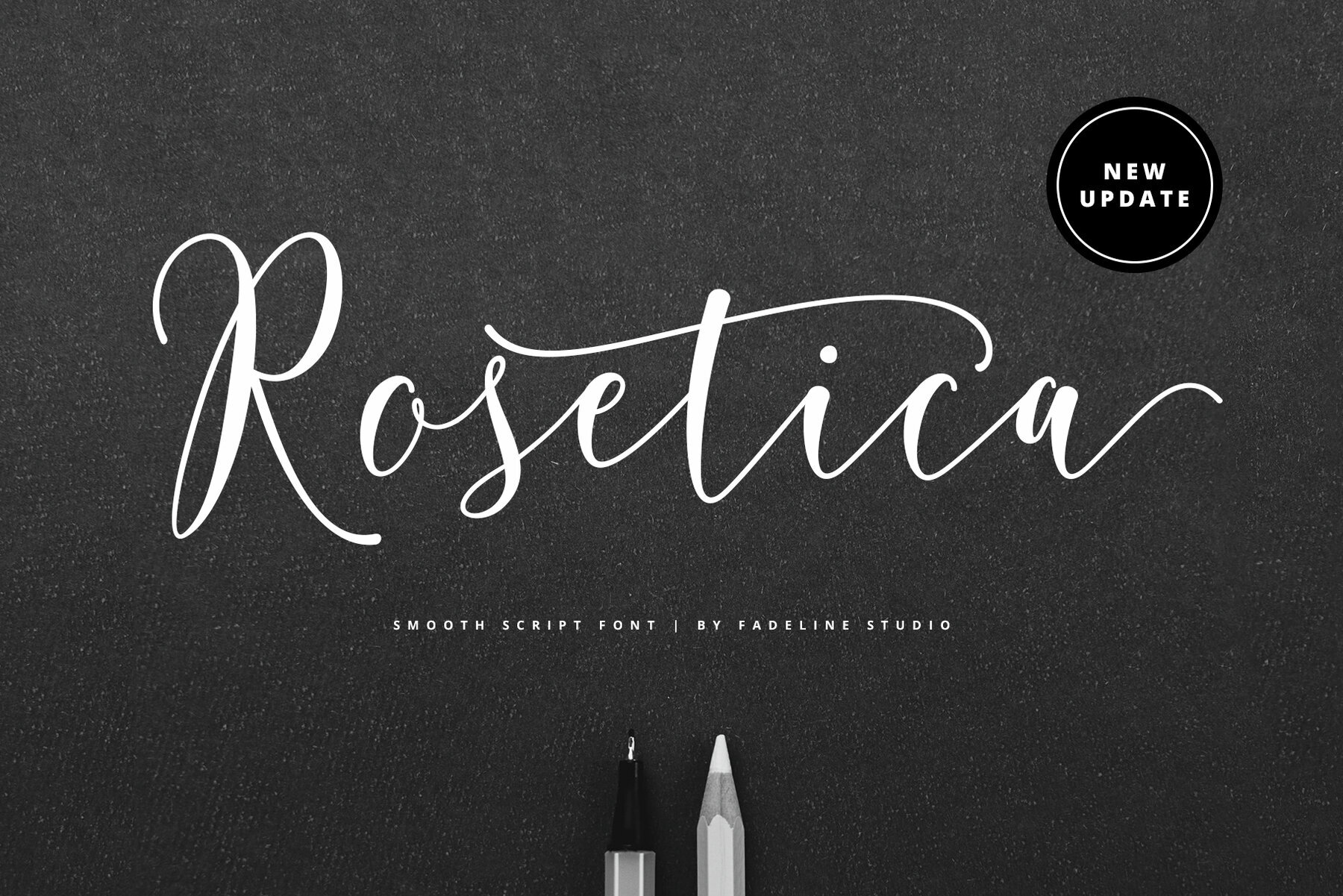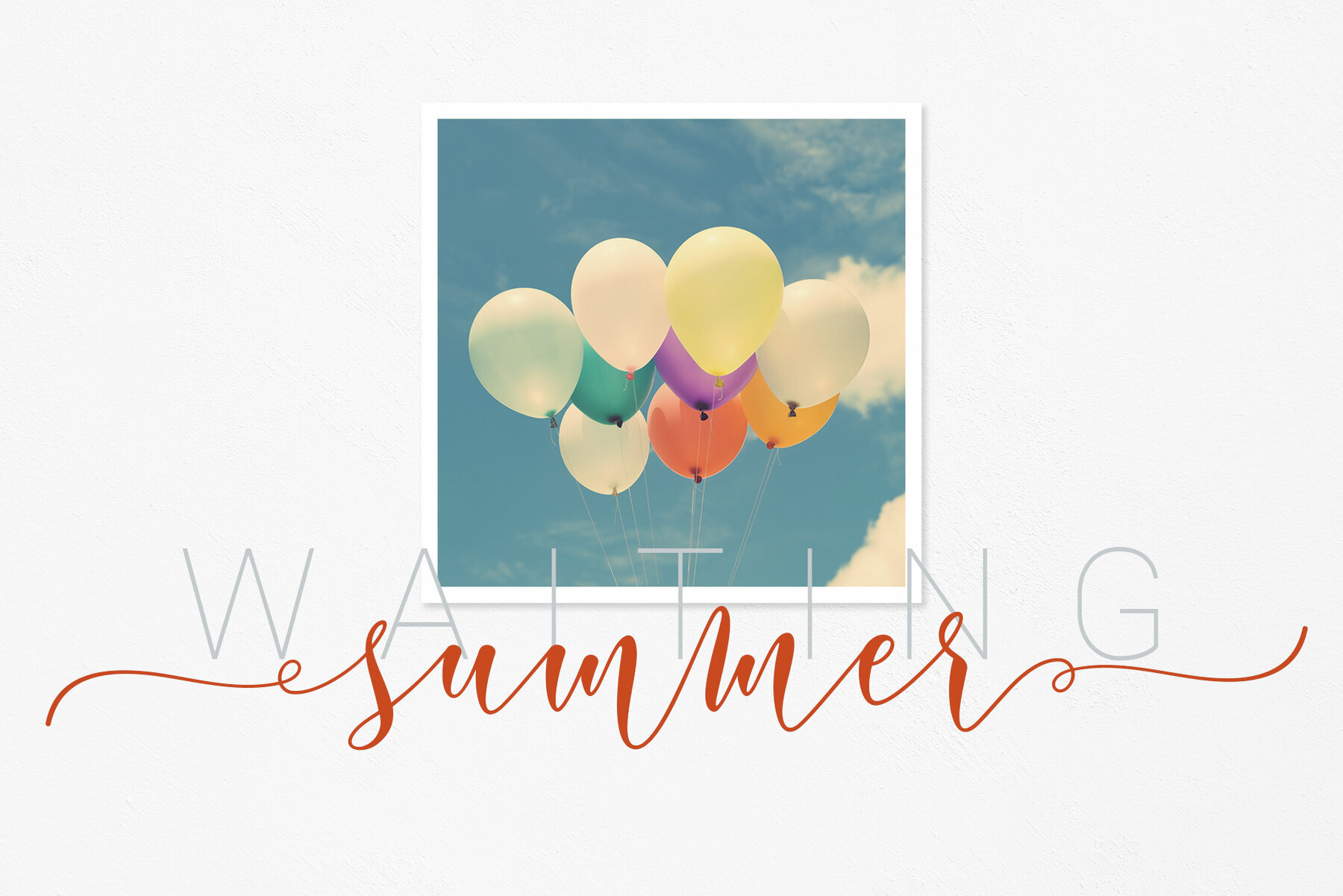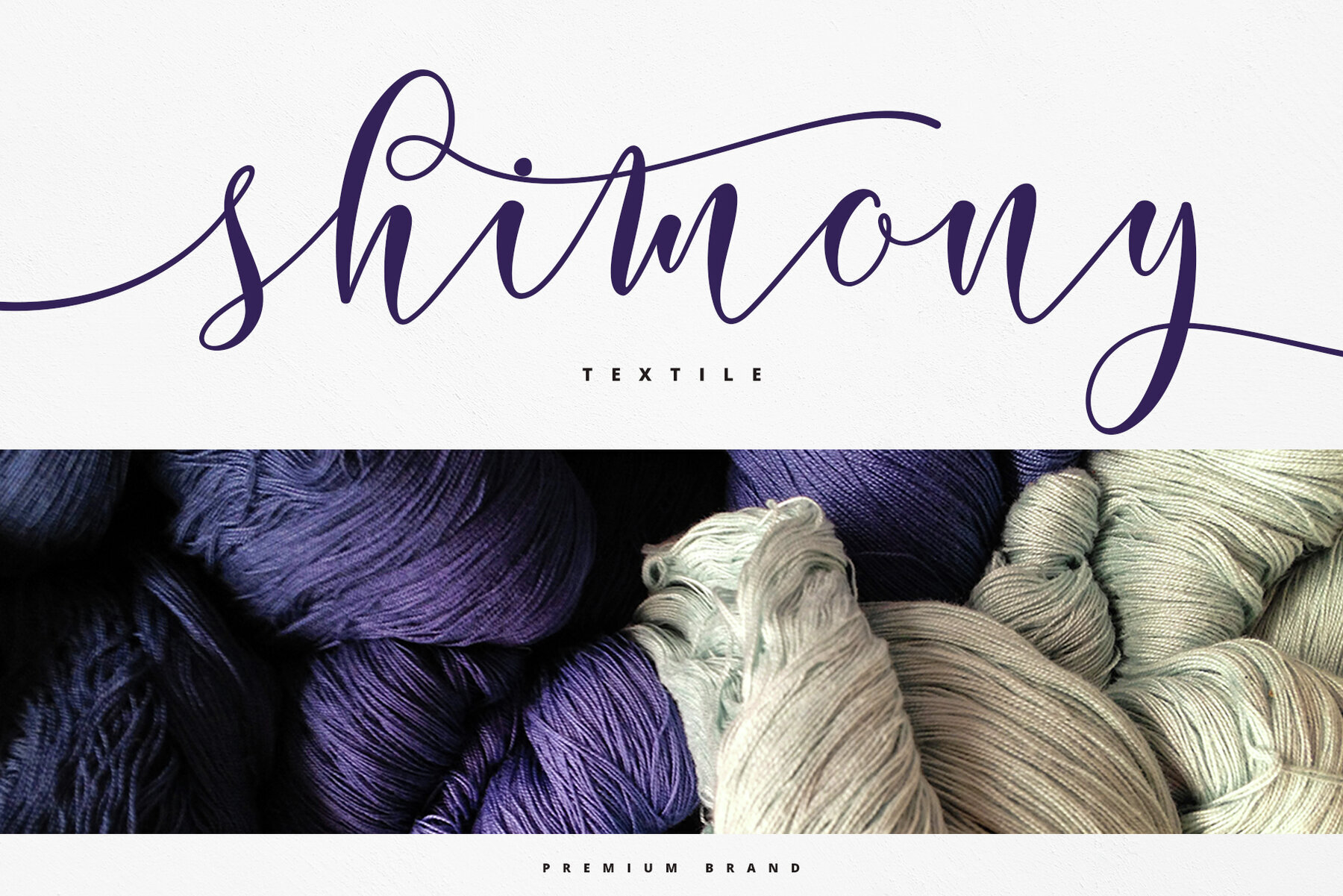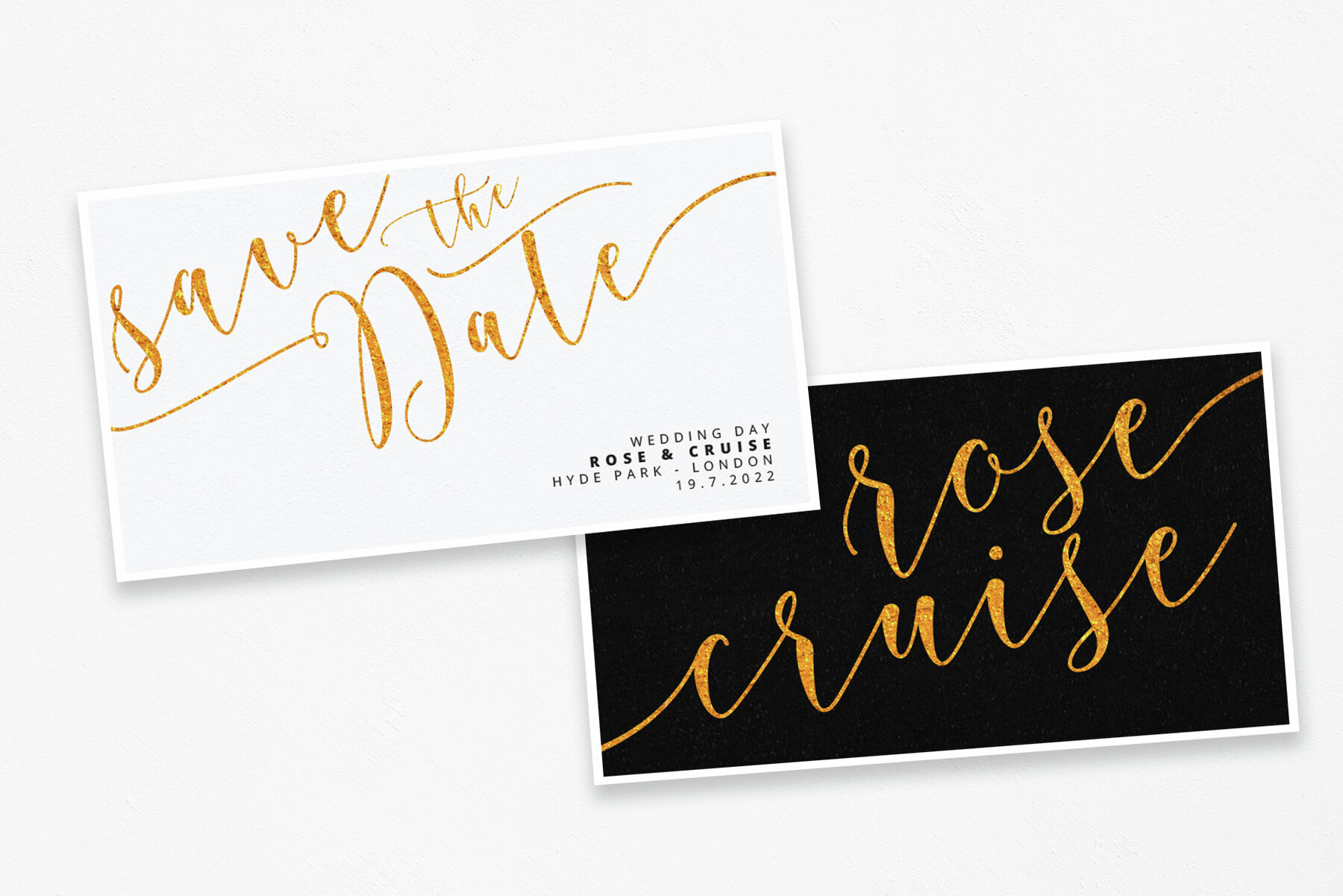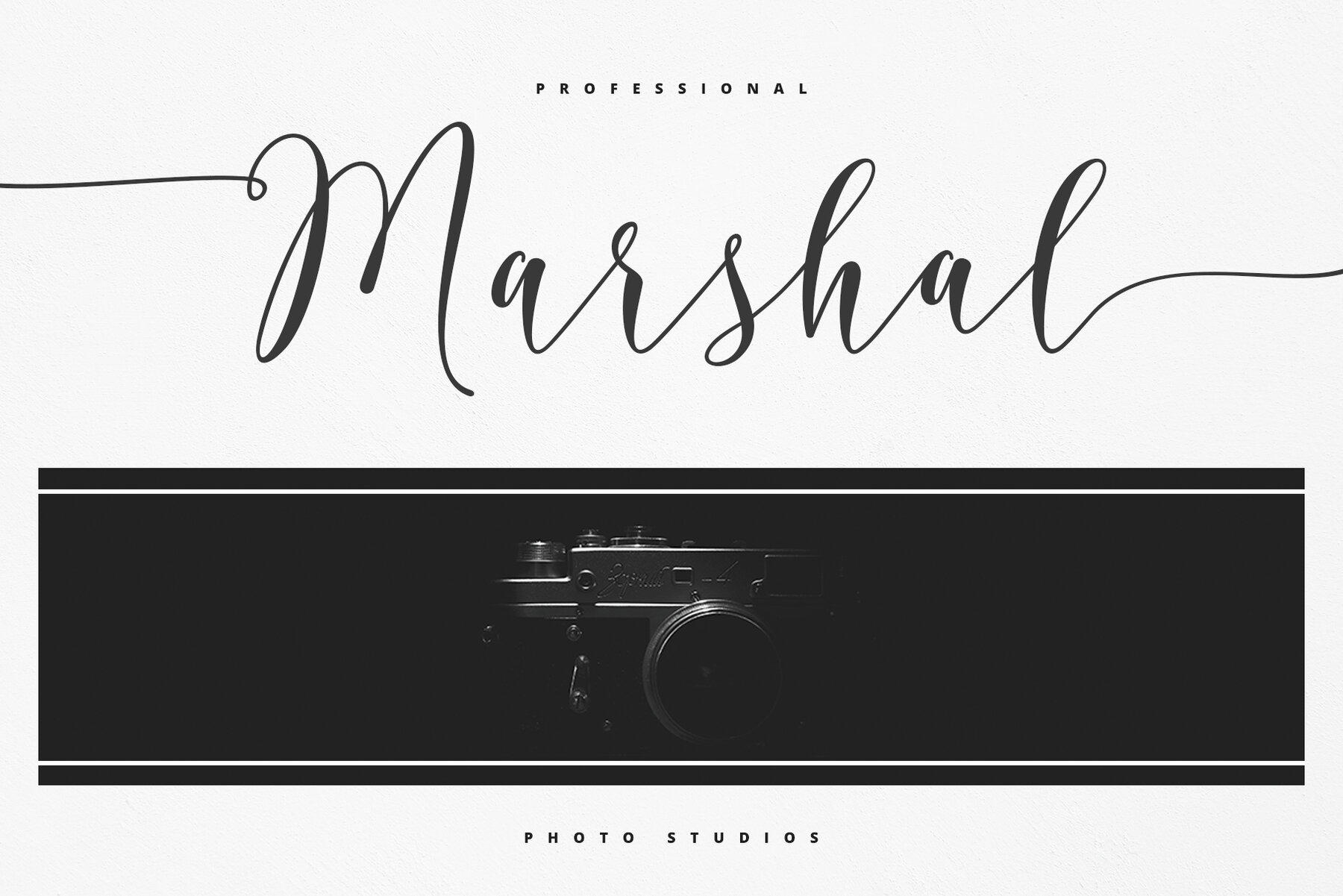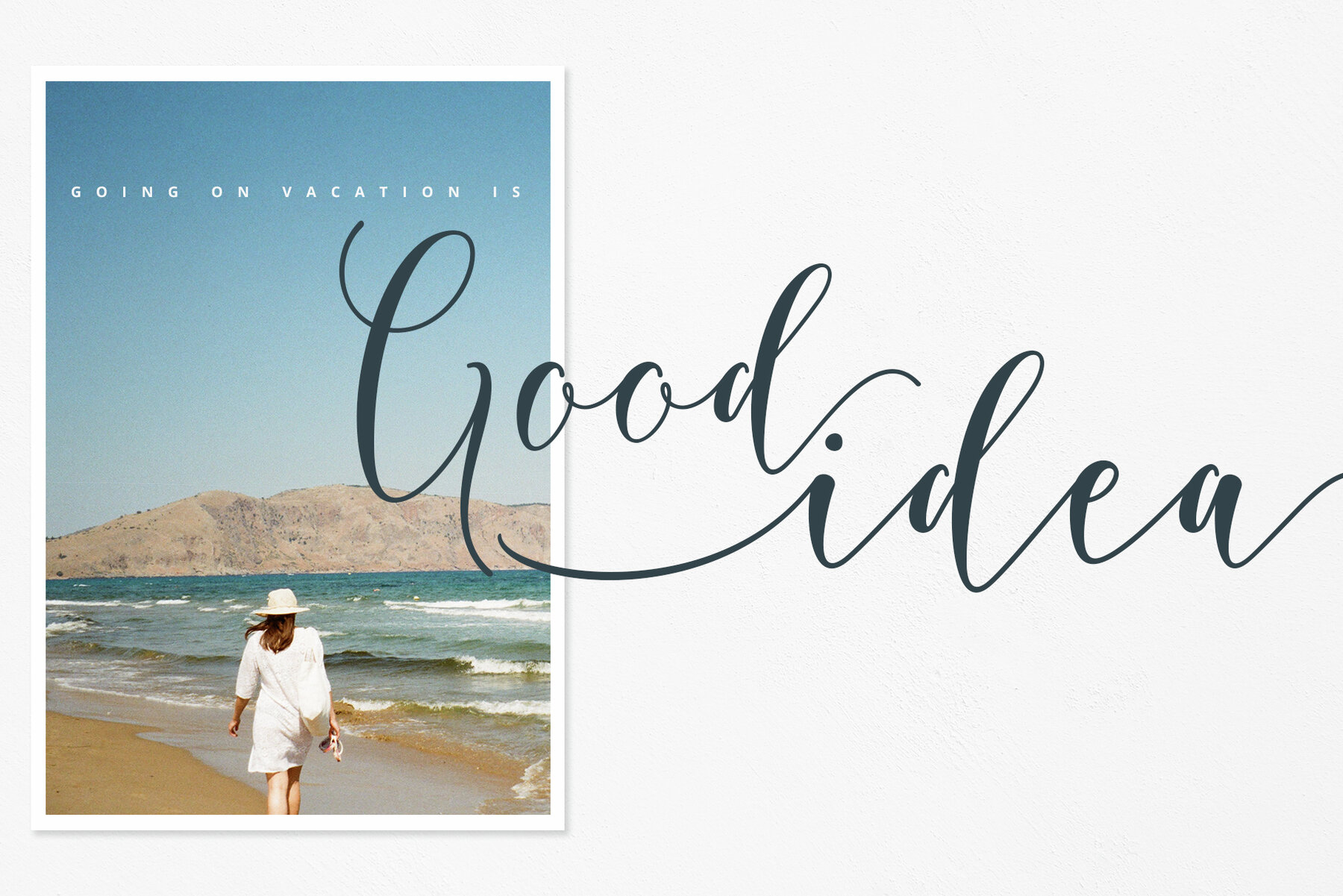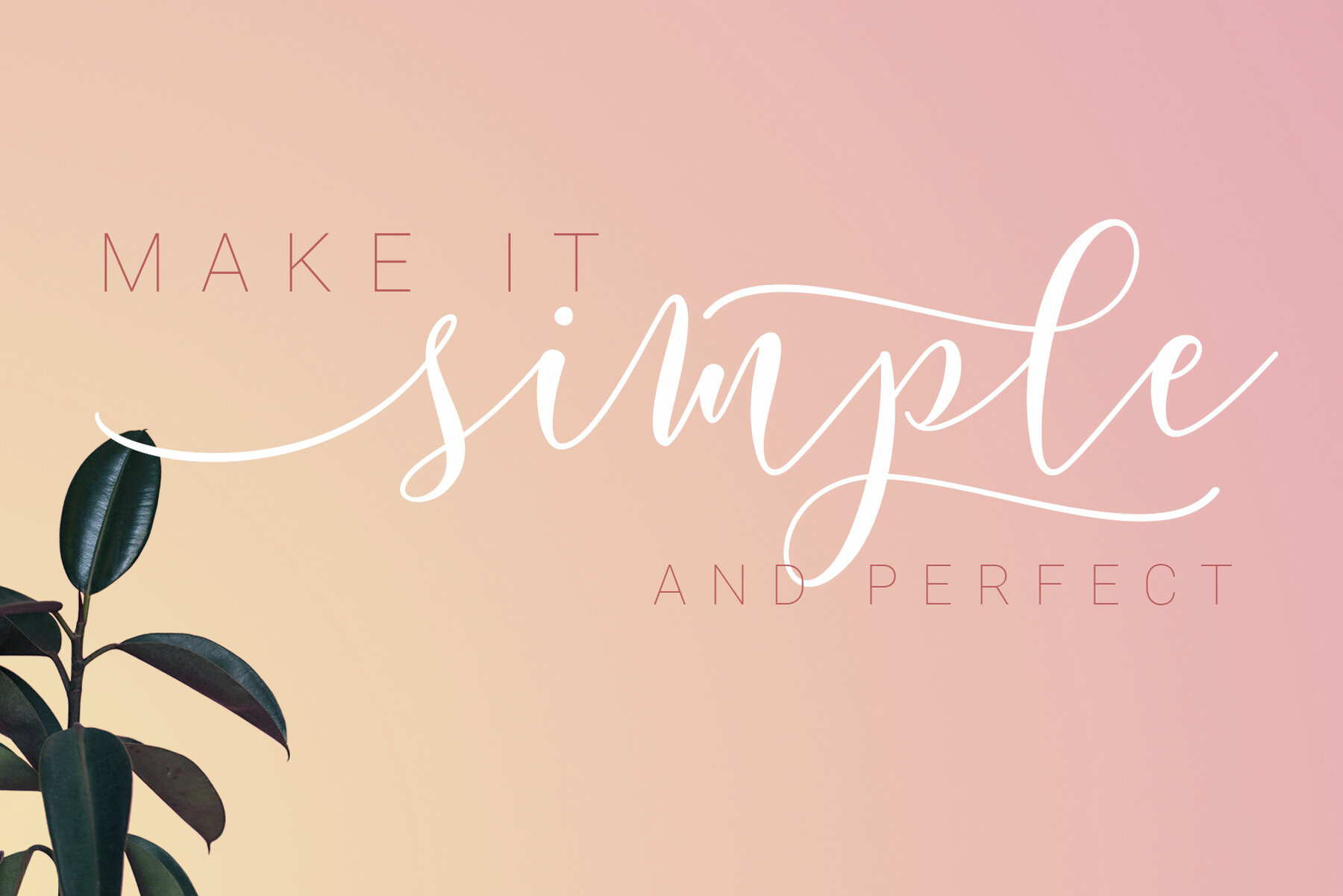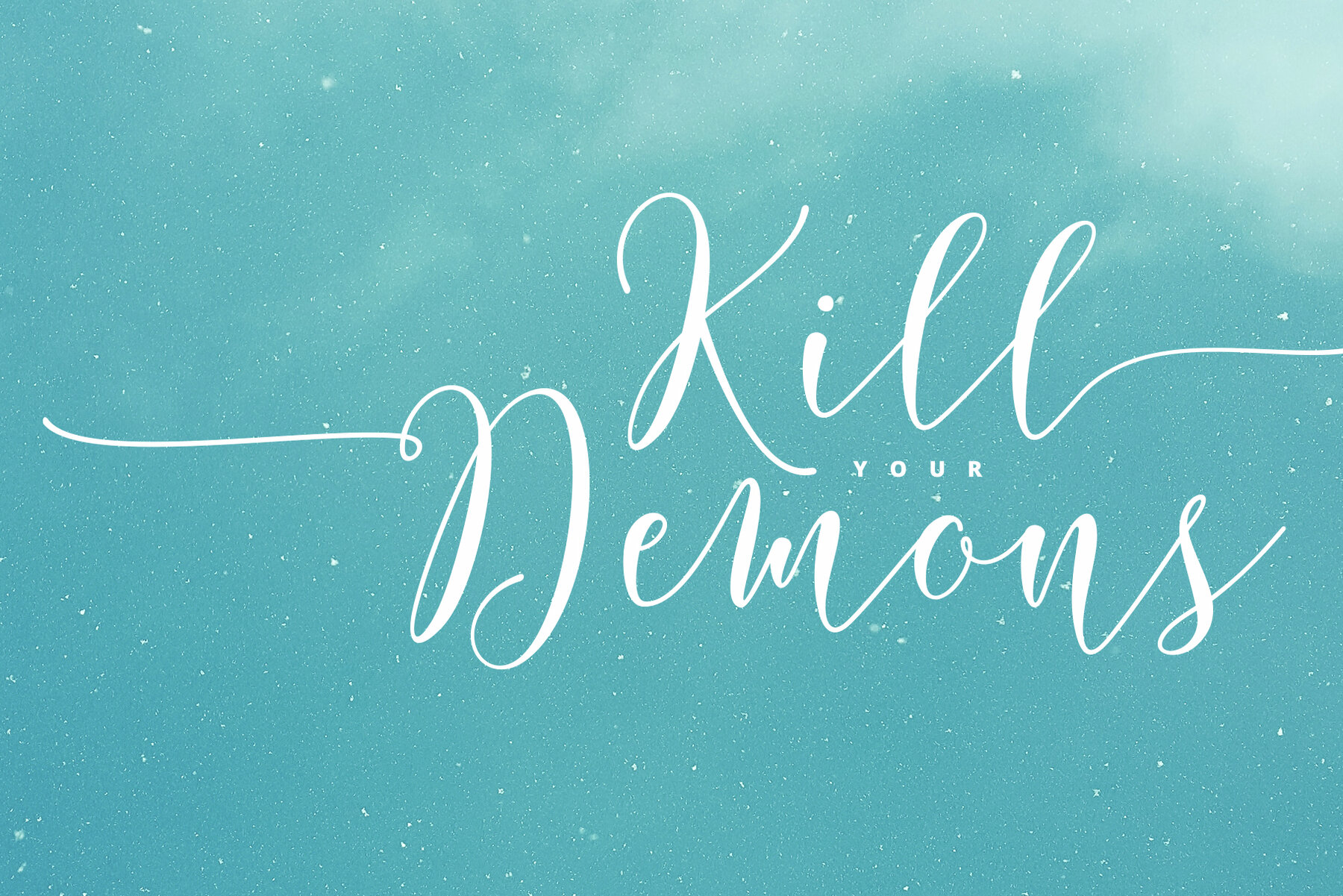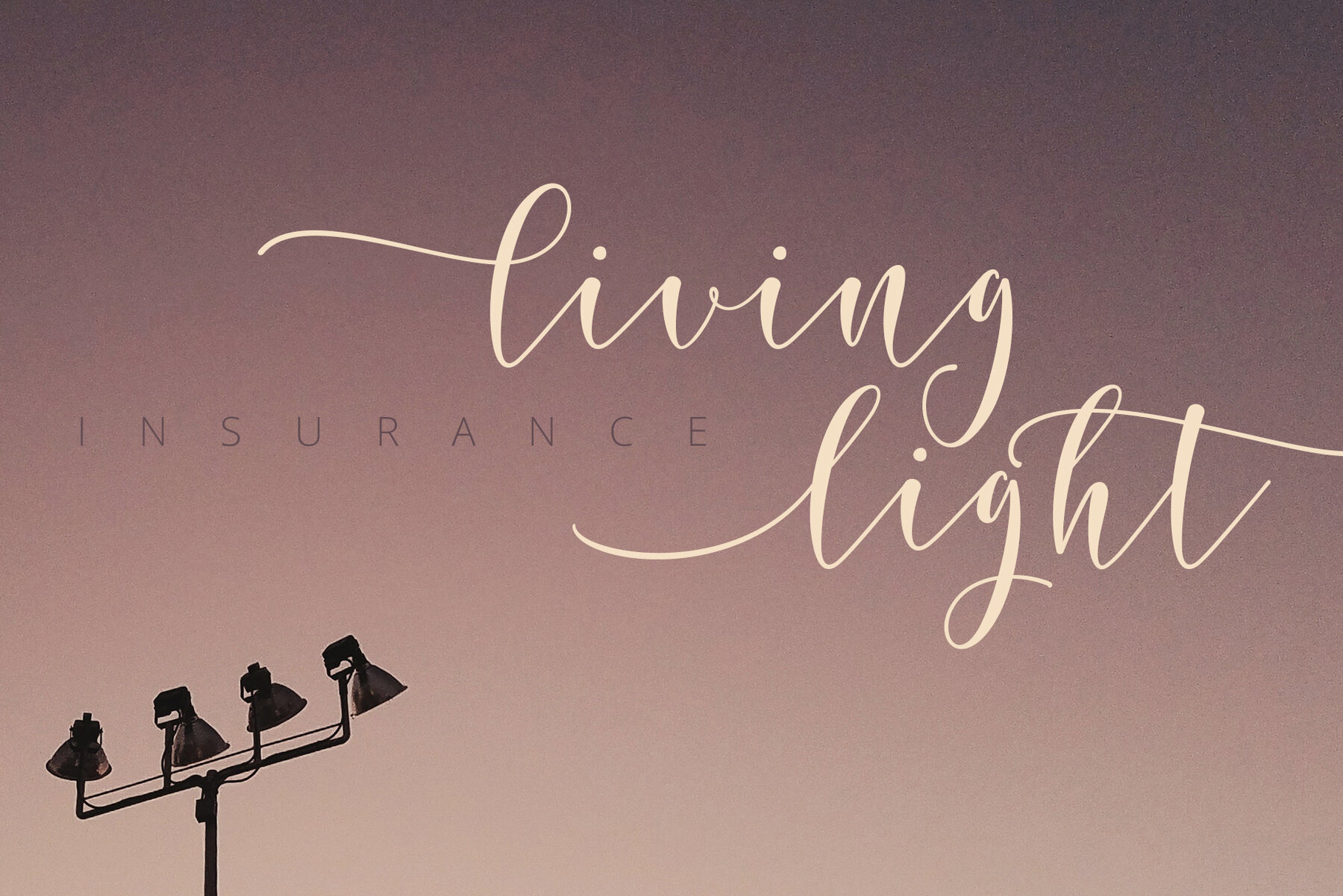
Rosetica Font
Rosetica Script
Rosetica by FadeLine Studio is a charming addition to any font collection, offering 700 meticulously crafted glyphs. This elegant script font captures the essence of smooth, handwritten style, imbuing every project with a touch of simplicity and sweetness. Whether you're designing logos, branding projects, or homeware, Rosetica provides a versatile and realistic look.Rosetica Script Font
Perfect for Various Creations